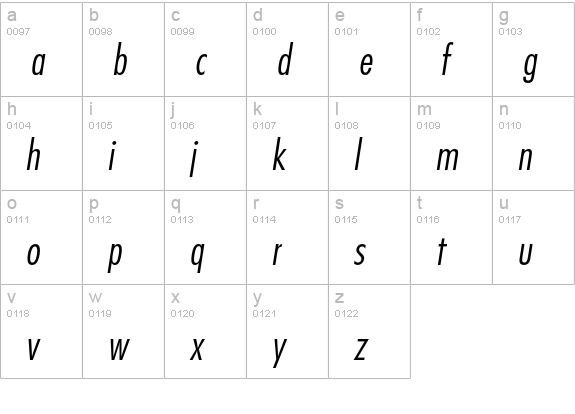
Futura Std Light Condensed Oblique is a refined, elegant, condensed-width, italic variant in the Futura typeface family \xE2\x80\x94 well suited to elegant body text, refined sub-headings, and luxury branding.
Futura Std Light Condensed Oblique is a sleek and modern typeface that exudes elegance and sophistication. With its slanted design and refined letterforms, this font is perfect for adding a touch of style to any project. The slim, condensed proportions make it ideal for creating sleek headlines, signage, and branding materials. And the best part? Futura Std Light Condensed Oblique is available for free download at FontsMarket.com! Simply visit the website to access this premium font without having to spend a penny. Whether you're a designer looking for a versatile typeface or a business owner in need of a stylish font for your marketing materials, Futura Std Light Condensed Oblique is sure to elevate your projects with its timeless appeal. Don't miss out on this opportunity to enhance your designs with this beautiful and freely available font.